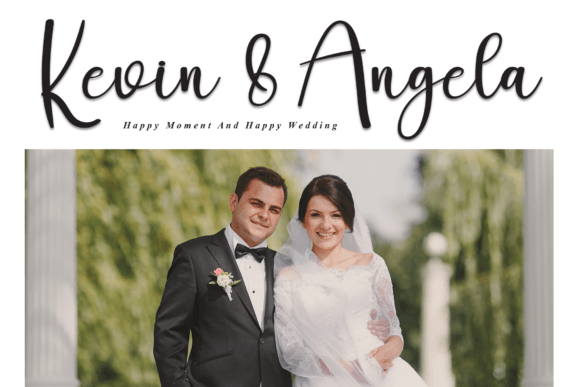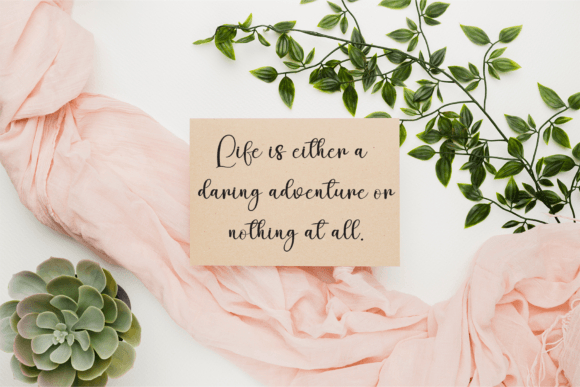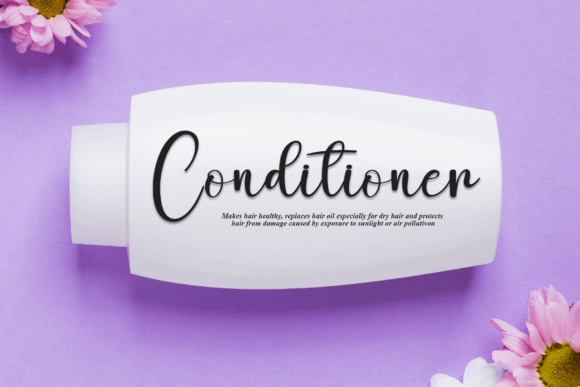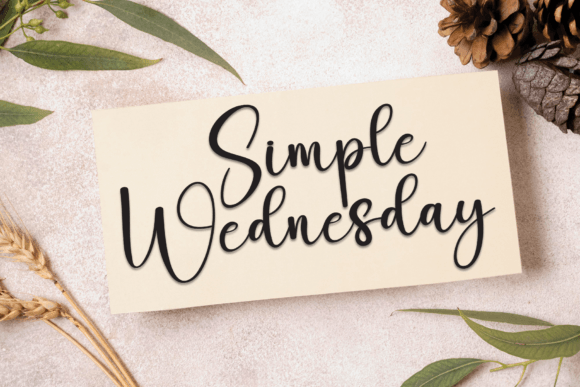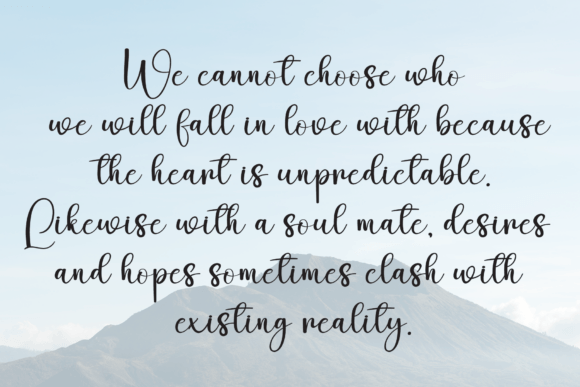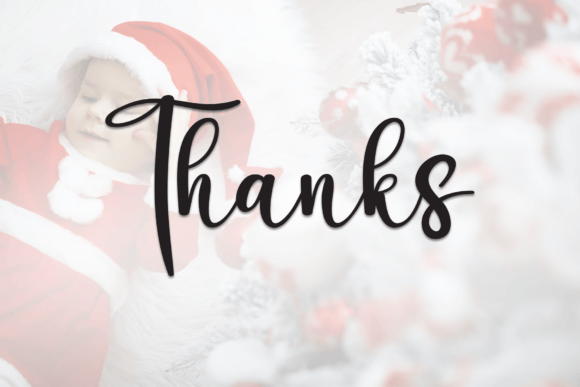
Get Ready to Jingle All the Way with Baby Christmas Font
Have you ever found yourself in the middle of a creative project, staring at a blank page, and suddenly, the idea strikes you? You envision a beautiful winter wonderland scene, complete with snowflakes, twinkling lights, and a dash of festive cheer. That’s exactly what happens when you fall in love with the Baby Christmas Font.
This sweet and friendly handwritten font is the perfect companion for your holiday designs. Its natural and unique style makes it incredibly versatile, allowing you to bring your most imaginative ideas to life. Whether you’re creating greeting cards, social media posts, or even a custom gift tag, Baby Christmas Font is the perfect tool to add a touch of warmth and personality to your work.
Baby Christmas Font Key Features
- Unique Characteristics: Whimsical, cursive script with festive Christmas elements, adding a touch of holiday magic to designs.
- Font Style: Casual, playful font, suitable for various design applications, including greeting cards, invitations, and social media posts.
Baby Christmas Font Review
Overall, I think the Baby Christmas Font is a fun and playful addition to any holiday design project. Here are some things that stand out:
- ✨ The font’s cutesy, handwritten style is perfect for kids’ parties, nursery decorations, and other family-friendly projects.
- ✨ The font includes a wide range of characters, including uppercase and lowercase letters, numbers, and punctuation marks.
- ✨ The font is highly customizable, with options for color, size, and style, making it easy to match your design aesthetic.
- ⚠️ The font is not ideal for formal or professional designs, as it may come across as too childish.
- ⚠️ The font’s cursive style can make it difficult to read at small sizes or in certain contexts.
- ⚠️ The font may not be compatible with all operating systems or devices, so be sure to test it thoroughly before using it in a project.
Overall, I think the Baby Christmas Font is a great choice for holiday designs that need a touch of whimsy and fun. Just be sure to use it in the right context, and you’ll be sure to bring a smile to your audience’s faces.
Tips for Getting the Most Out of Baby Christmas Font
Use Baby Christmas Font to add a festive touch to your designs, especially for Christmas-themed projects. Experiment with different font sizes, colors, and styles to create a unique look.
Baby Christmas Font is ideal for:
- Christmas card designs
- Gift tags and labels
- Christmas party invitations
- Use the font to create cute phrases like “Baby’s First Christmas” or “Merry Christmas Baby.”
- Print the phrases on cardstock or vellum paper.
- Cut out the phrases and attach a string or ribbon to create ornaments.
- Pink or red glitter paper for a festive look.
- Mini bells or bows for added embellishments.
- Photos of the baby for a personalized touch.
- Use the font to create a cute phrase like “You’re Invited to Baby’s First Christmas!”
- Pair the phrase with a beautiful illustration of a baby or a Christmas tree.
- Add a photo of the baby for a personal touch.
- A watercolor background for a whimsical look.
- A gold or silver foil stamp for added elegance.
- A cute ribbon or bow for a finishing touch.